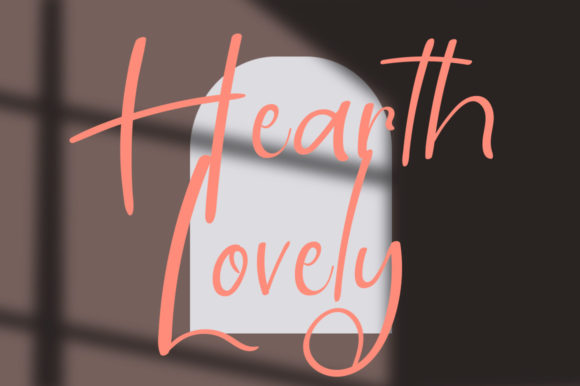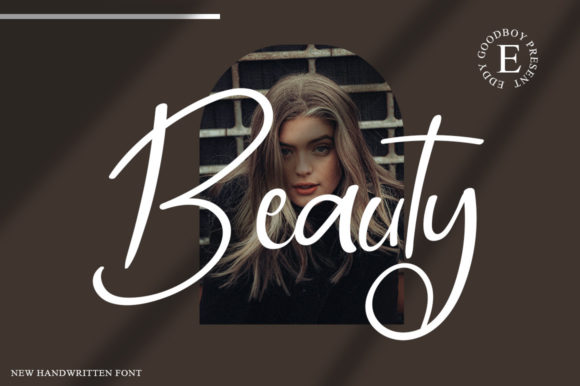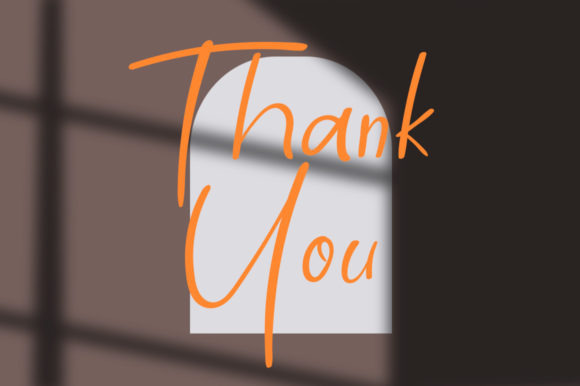
Elevate Your Designs with Creative Lettering Font: A Stylish and Elegant Script Font
Are you a designer or crafter looking for a font that can add a touch of elegance and sophistication to your designs? Look no further than Creative Lettering Font, a stylish and incredibly elegant script font that is perfect for a variety of design projects. In this article, we’ll take a closer look at Creative Lettering Font, its features, and how you can use it to elevate your designs.
What is Creative Lettering Font?
Creative Lettering Font is a beautifully crafted script font that is designed to give your designs a handwritten touch. It is a versatile font that can be used for a wide range of design projects, including wedding invitations, thank you cards, quotes, greeting cards, logos, business cards, and more. With its elegant and stylish lettering, Creative Lettering Font is perfect for designers and crafters who want to add a personal touch to their designs.
Features of Creative Lettering Font
Creative Lettering Font has several features that make it a great choice for designers and crafters. Some of its key features include:
• Elegant and stylish lettering: Creative Lettering Font has a beautiful, cursive script style that is both elegant and stylish.
• Handwritten touch: The font has a handwritten feel that gives designs a personal touch.
• Versatile: Creative Lettering Font can be used for a wide range of design projects, from wedding invitations to business cards.
• Easy to read: Despite its elegant style, Creative Lettering Font is easy to read, making it perfect for designs that require a lot of text.
How to Use Creative Lettering Font
Creative Lettering Font is easy to use and can be incorporated into a variety of design projects. Here are a few ways you can use Creative Lettering Font:
• Wedding invitations: Add a touch of elegance to your wedding invitations with Creative Lettering Font.
• Thank you cards: Use Creative Lettering Font to create beautiful and personalized thank you cards.
• Quotes and posters: Create stunning quotes and posters with Creative Lettering Font.
• Greeting cards: Use Creative Lettering Font to create beautiful and personalized greeting cards.
• Logos and business cards: Add a touch of elegance to your logos and business cards with Creative Lettering Font.
Tips for Using Creative Lettering Font
Here are a few tips for using Creative Lettering Font:
• Use it sparingly: While Creative Lettering Font is beautiful, it can be overwhelming if used too much. Use it sparingly to add a touch of elegance to your designs.
• Pair it with other fonts: Creative Lettering Font pairs well with other fonts, such as sans serif fonts. Experiment with different font combinations to find the perfect look for your design.
• Experiment with colors: Creative Lettering Font looks great in a variety of colors. Experiment with different colors to find the perfect look for your design.
Creative Lettering Font is a stylish and incredibly elegant script font that is perfect for designers and crafters who want to add a personal touch to their designs. With its elegant and stylish lettering, Creative Lettering Font is perfect for a variety of design projects, from wedding invitations to business cards. By following the tips outlined in this article, you can use Creative Lettering Font to elevate your designs and create beautiful and personalized projects.
Whether you’re a seasoned designer or a crafter just starting out, Creative Lettering Font is a great addition to your font collection. So why not give it a try and see how it can elevate your designs?